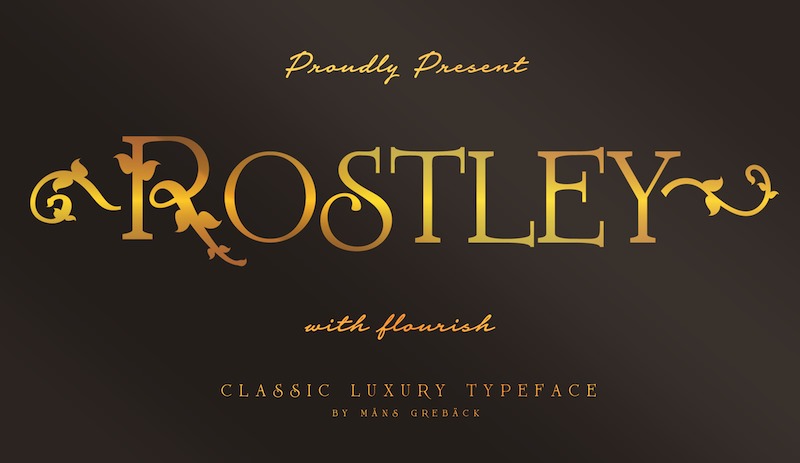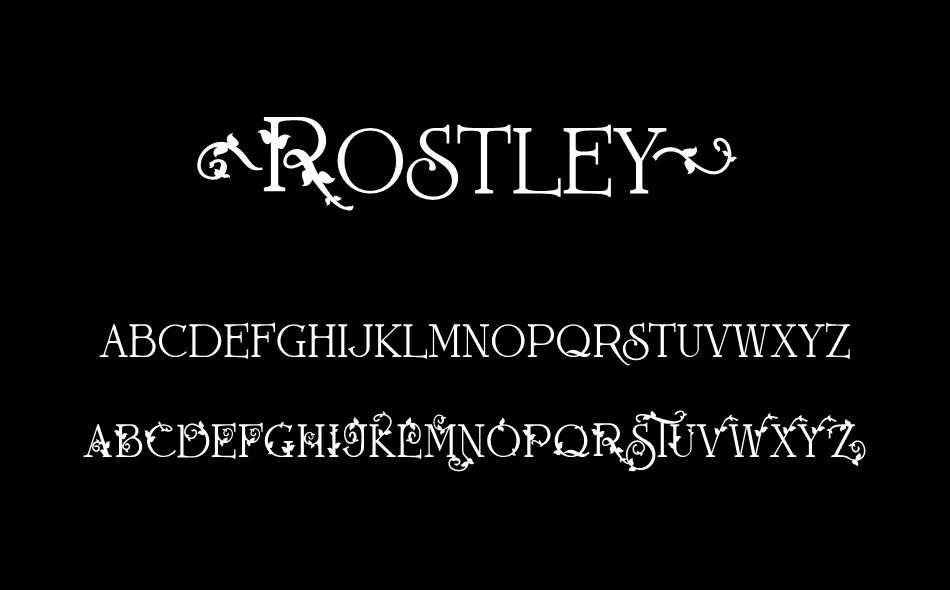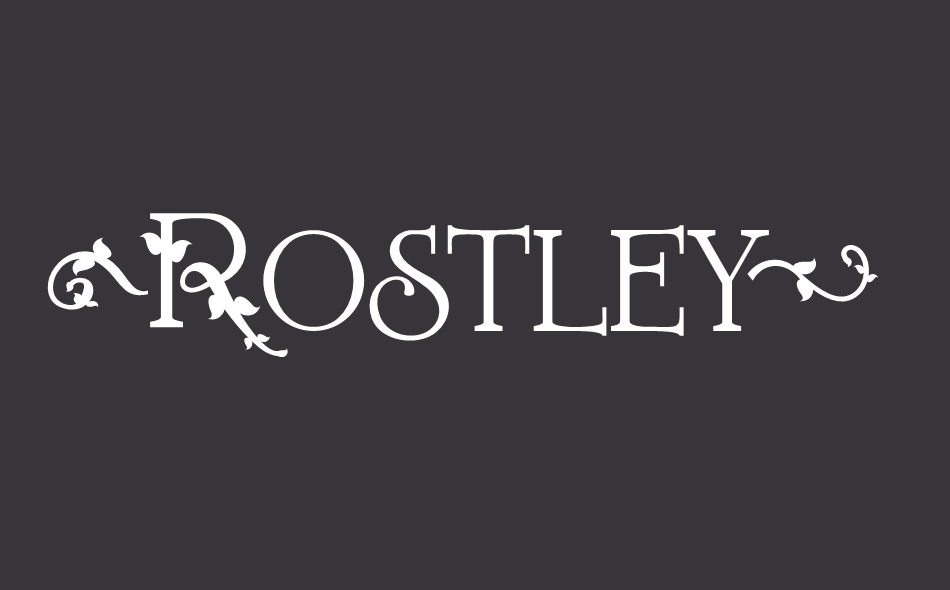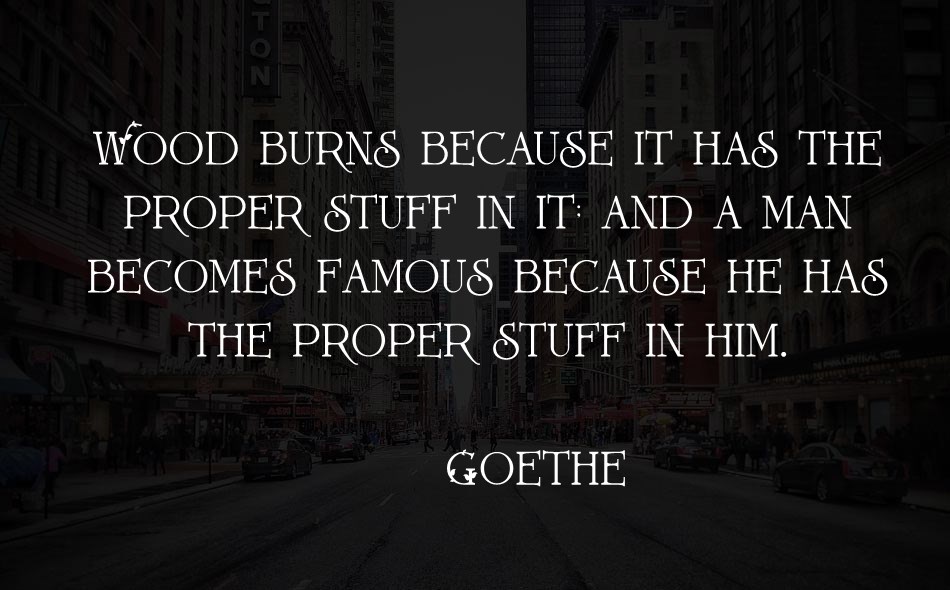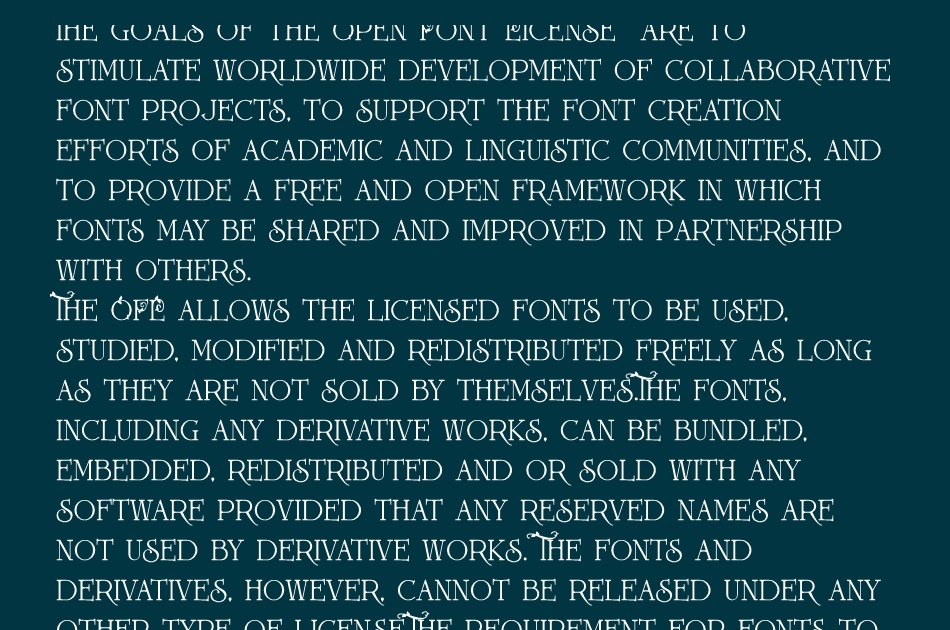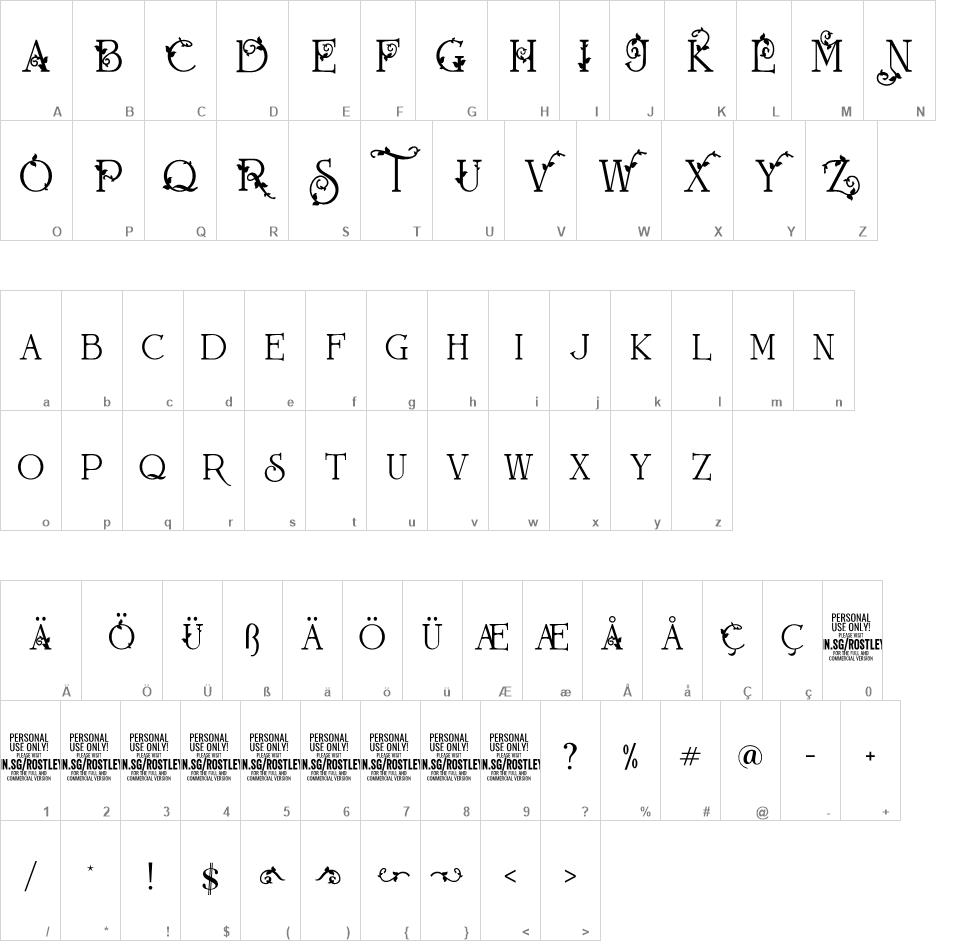
Rostley font
Rostley is a decorative serif font that blends classic elegance with ornamental charm. With its floral and leafy accents, Rostley adds a touch of cuteness and sophistication to any design.
Use parenthesis symbols ( ) { } [ ] to make floral elements.
Example: (Flower Style]
Rostley is a stunning serif font that blends classic elegance with ornamental charm. The uppercase design is bold, retro and proper, making it perfect for elegant and decorative designs.
The font is perfect for projects that need a touch of beauty, such as logos, wedding invitations, and other formal designs. With its floral and leafy accents, Rostley adds a touch of cuteness and sophistication to any design.
Designer Mans Greback has combined traditional serif design with modern style to create a unique and timeless font. The decorative alternates of Rostley allow you to add a personal touch to your designs, making them truly one of a kind.
Whether you're creating something for fashion, beauty, or any other industry, Rostley is the perfect choice for a font that is both beautiful and functional.
Use parenthesis symbols ( ) { } [ ] to make floral elements.
Example: (Flower Style]
The Rostley family consists of Regular and Italic.
The font is built with advanced OpenType functionality and has a guaranteed top-notch quality, containing stylistic and contextual alternates, ligatures and more features; all to give you full control and customizability.
It has extensive lingual support, covering all Latin-based languages, from Northern Europe to South Africa, from America to South-East Asia.
It contains all characters and symbols you'll ever need, including all punctuation and numbers.